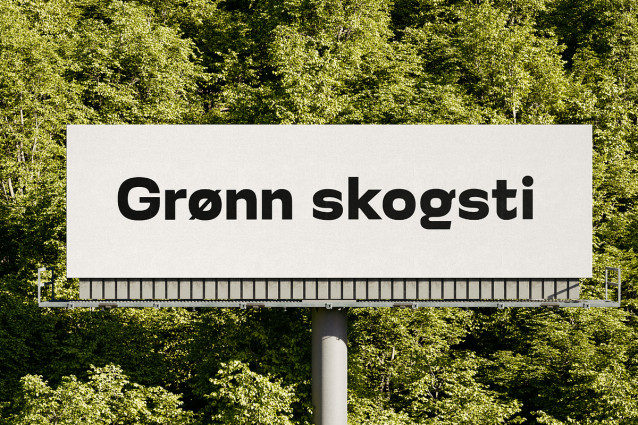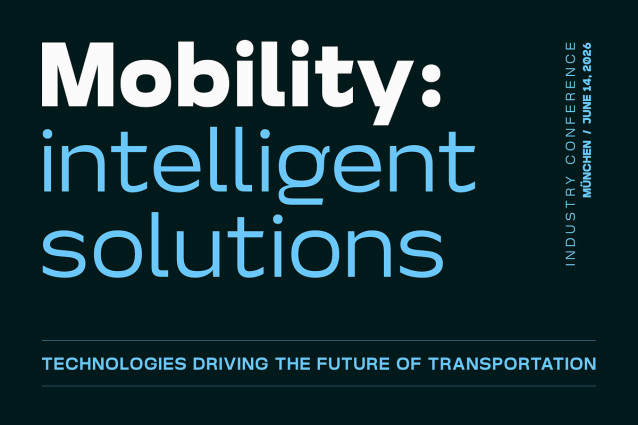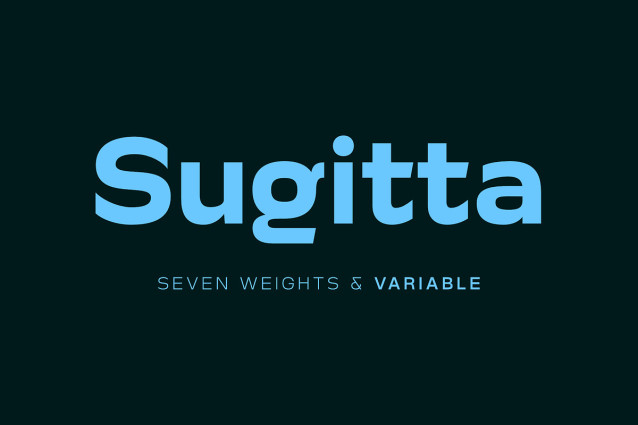
Sugitta Font is a modern geometric sans-serif designed for clarity, confidence and versatility. With seven carefully balanced weights and a fully functional variable version, it adapts seamlessly to branding, editorial, web and interface design.
Sugitta Font